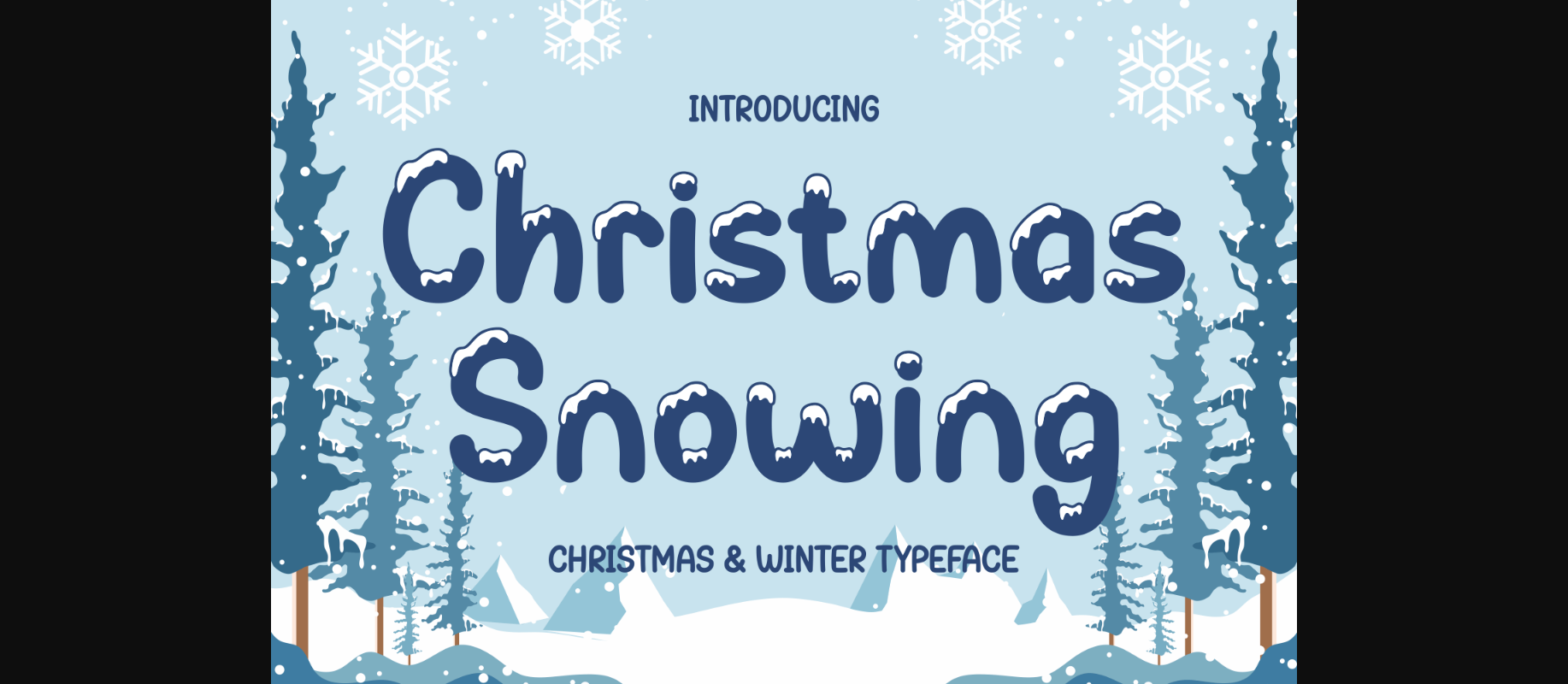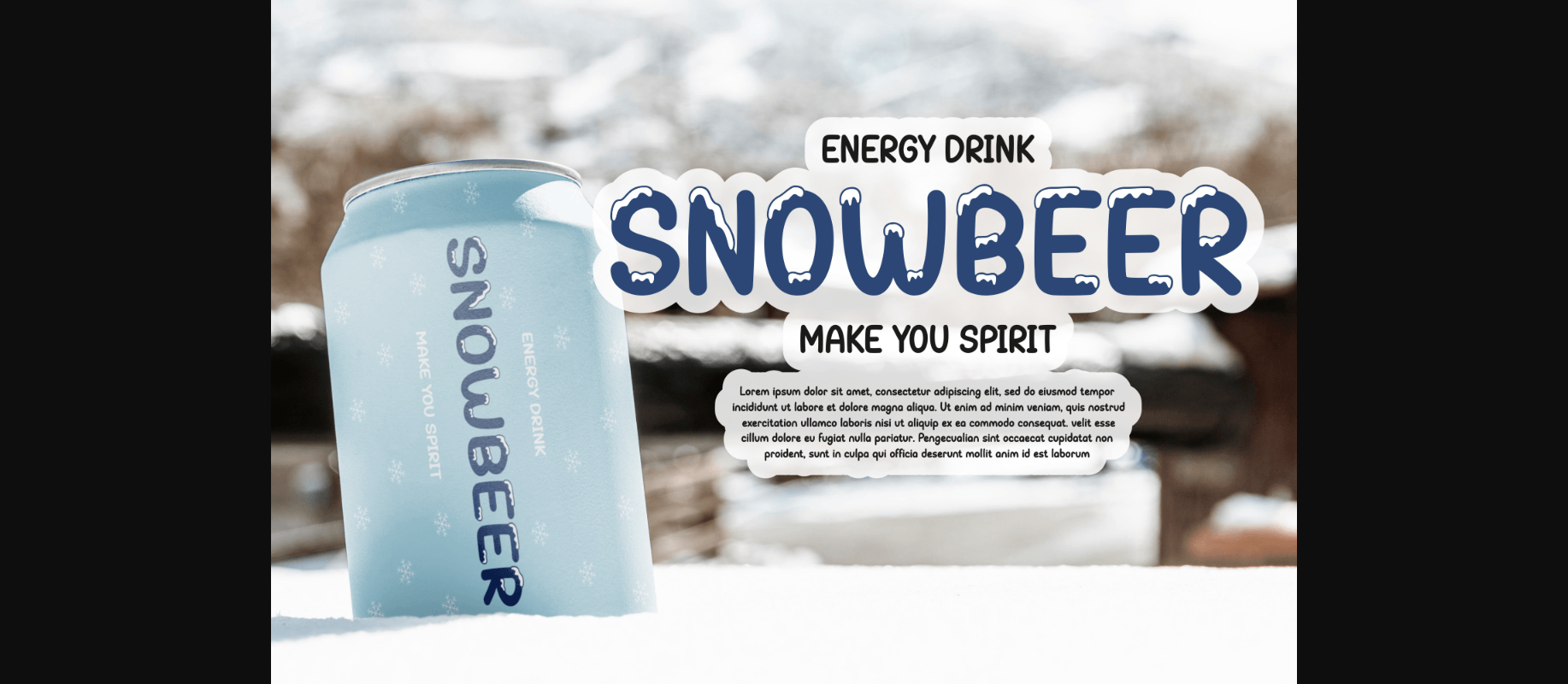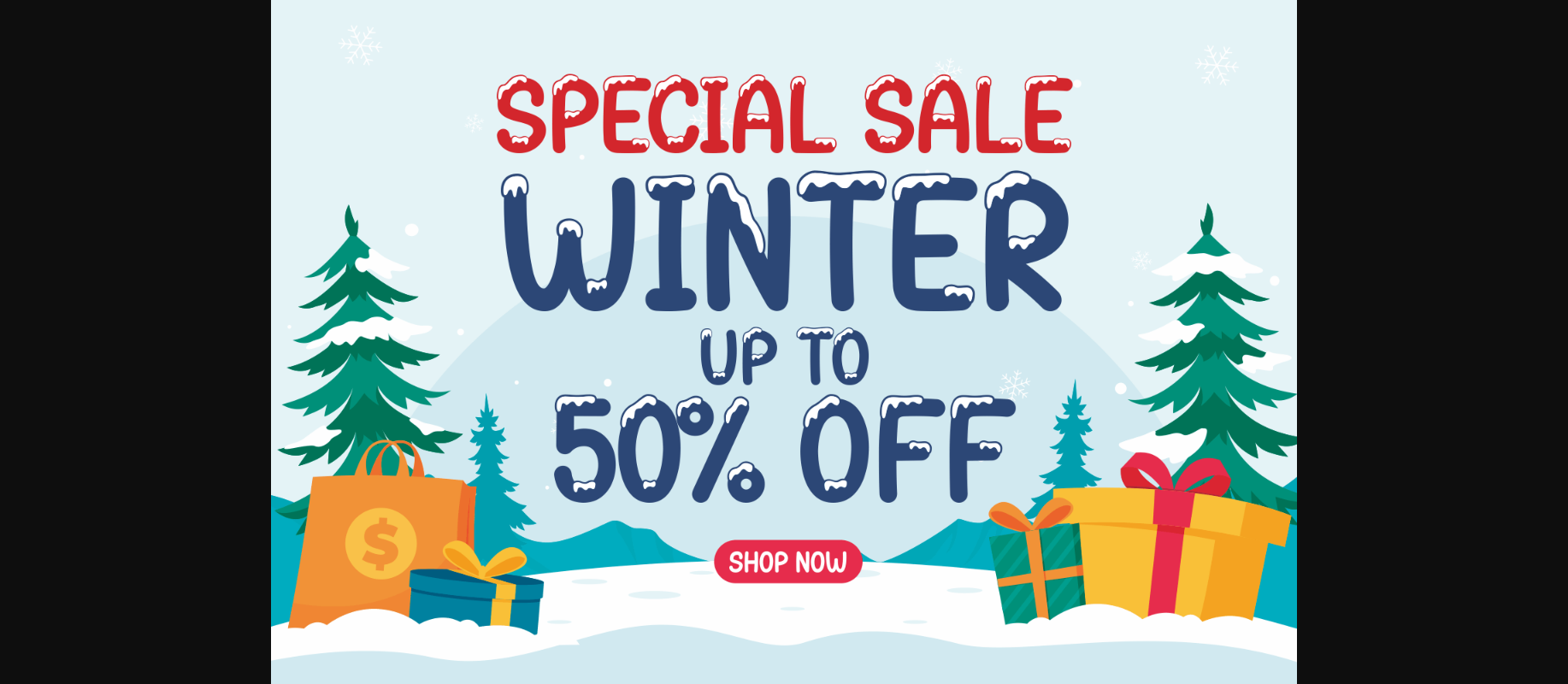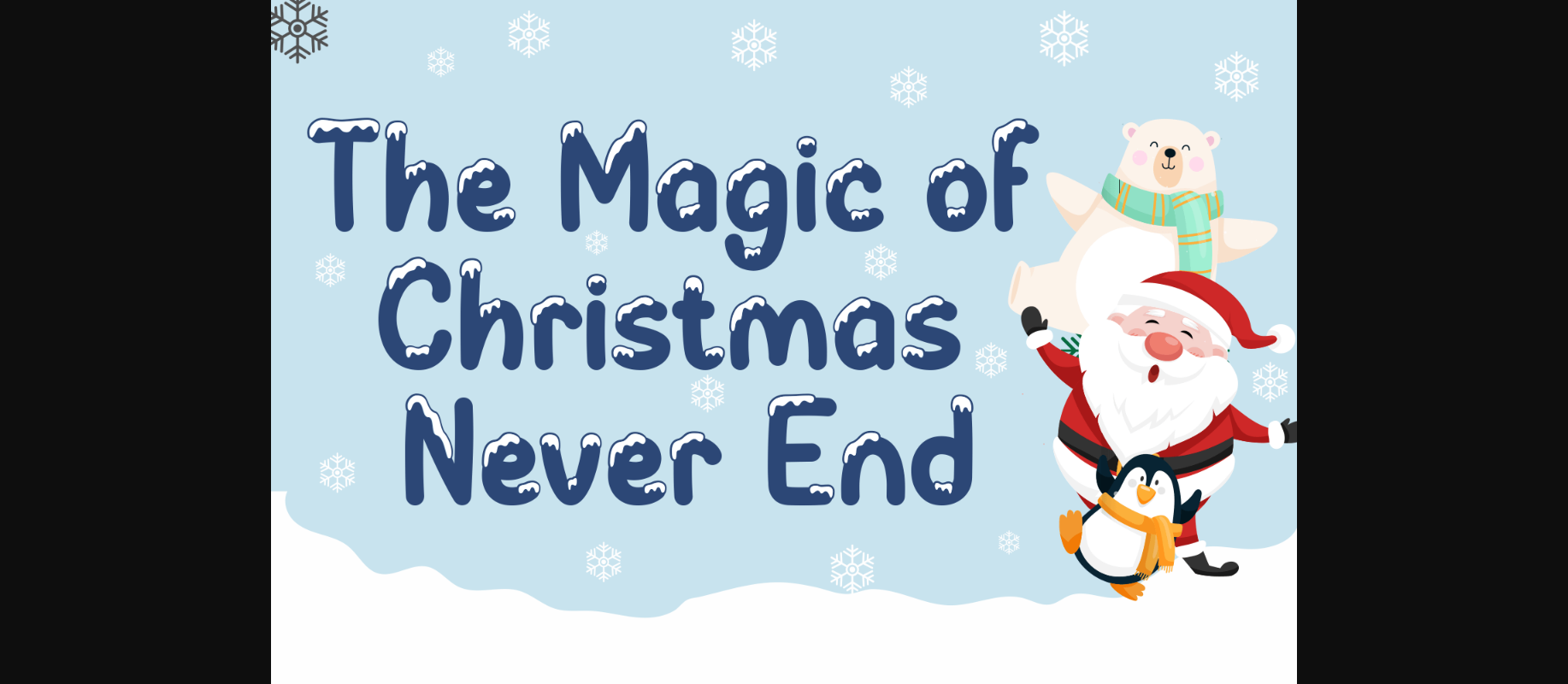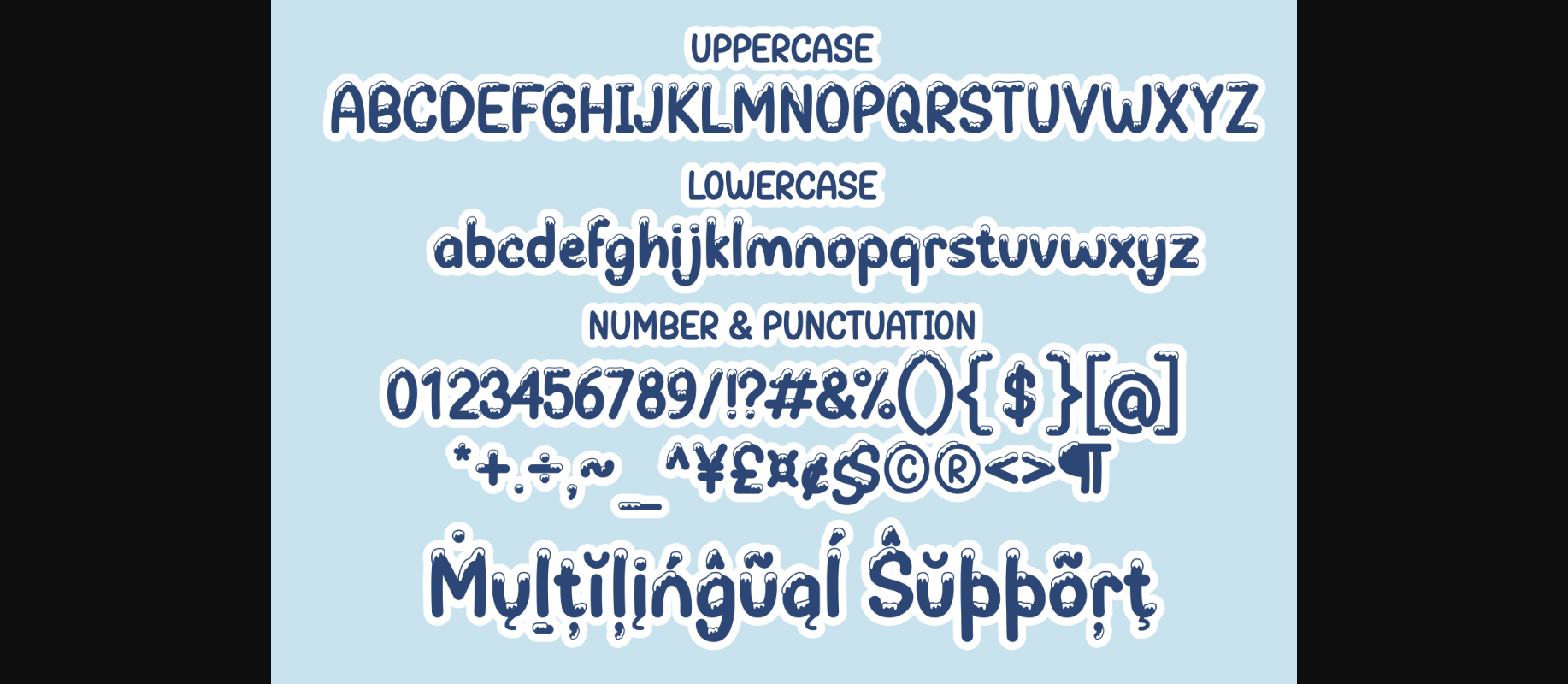
Christmas Snowing Font
About Christmas Snowing Font
Bring some winter vibes to your designs with this adorable decorative font. Christmas Snowing is perfect for all your festive holiday projects, enhancing them with a cute and cozy accent.